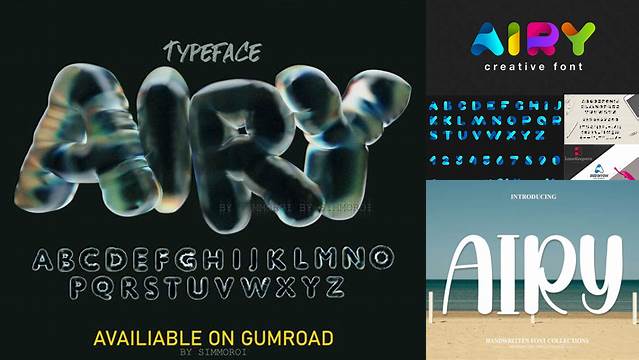
Airy 3D Font: Free Downloads & Creative Uses
Hey guys! Ever stumbled upon a font that just makes you stop and stare? Well, that's how I felt when I first saw the airy 3D font. It's like the letters are floating right off the screen! If you're looking to add some serious visual pop to your designs, you've come to the right place. We're diving deep into the world of airy 3D fonts, where to find them for free, and how to use them to make your projects stand out. Let’s get started!
What is Airy 3D Font?
So, what exactly makes an airy 3D font so special? It’s all about creating the illusion of depth and dimension. These fonts use clever shading, perspective tricks, and layering to make letters appear as if they're popping out from the page. The airy part often refers to the lightness and spaciousness in the design, preventing the 3D effect from feeling heavy or overwhelming. Instead, you get a sense of floating, ethereal beauty. An airy 3D font is not just another typeface; it's a statement, a way to convey modernity and innovation. Designers often use this type of font to capture attention immediately. Its unique design adds character and professionalism to any type of project.
Why Use an Airy 3D Font?
Why should you even bother with an airy 3D font? Well, for starters, it’s a fantastic way to grab attention. In a world saturated with visual content, you need something that stands out, and a well-executed airy 3D font can do just that. Think about logos, posters, website headers, or even social media graphics. Using an airy 3D font instantly adds a touch of sophistication and modernity. Plus, it can help convey a sense of innovation and forward-thinking. But beyond aesthetics, these fonts can also improve readability. The added depth and dimension can make text easier to scan and digest, which is crucial in today’s fast-paced digital environment. Furthermore, an airy 3D font makes your design more memorable. By adding depth and layers, it leaves a lasting impression, increasing brand recognition and user engagement.
Free Download Sites for Airy 3D Fonts
Using Airy 3D Fonts in Logos
Logos are crucial for branding, and using an airy 3D font can make yours unforgettable. An airy 3D font can convey sophistication, innovation, and a modern edge. Imagine a tech startup using a sleek, airy 3D font for their logo – it immediately communicates that they're forward-thinking and cutting-edge. However, it's crucial to ensure that the font remains legible and scalable. A logo should look just as good on a business card as it does on a billboard. A well-designed logo using an airy 3D font can significantly enhance brand recognition and create a lasting impression.
Creating Eye-Catching Posters with Airy 3D Fonts
Posters are all about grabbing attention, and an airy 3D font can be your secret weapon. Whether you're promoting an event, a product, or just trying to spread a message, a bold, airy 3D font can make your poster pop. Experiment with different colors, shadows, and layering effects to create a truly dynamic design. Remember, the font should complement the overall theme and message of the poster. Integrating an airy 3D font can convert viewers into potential customers or attendees.
Enhancing Website Headers with Airy 3D Fonts
Your website header is prime real estate, and using an airy 3D font can make a strong first impression. A well-chosen airy 3D font can convey your brand's personality and set the tone for the entire site. Just make sure it's legible and doesn't slow down your page load time. Optimizing an airy 3D font for web use ensures that it looks great without sacrificing performance. The first impression on your website matters, and a great header is an integral part of it.
Designing Stunning Social Media Graphics Using Airy 3D Fonts
Social media is a visual playground, and using an airy 3D font can help your content stand out from the crowd. Whether you're creating Instagram posts, Facebook ads, or Twitter banners, a bold, airy 3D font can grab attention and convey your message effectively. Experiment with different styles and effects to see what works best for your brand. An airy 3D font adds dynamism and flair, which is essential for standing out in the fast-paced world of social media. Social media graphics should be eye-catching, and the font choice is a critical element.
Mixing and Matching Airy 3D Fonts with Other Typefaces
Don't be afraid to mix and match your airy 3D fonts with other typefaces. Pairing a bold, airy 3D font with a clean, simple sans-serif font can create a visually appealing contrast. Just make sure the fonts complement each other and don't clash. The right combination can elevate your design and make it more engaging. Using an airy 3D font in conjunction with simpler fonts ensures readability while maintaining visual interest.
So there you have it – a deep dive into the world of airy 3D fonts! I hope this guide has given you some inspiration and practical tips for using these fonts in your own projects. Remember, the key is to experiment, have fun, and always prioritize legibility and visual appeal. Happy designing!